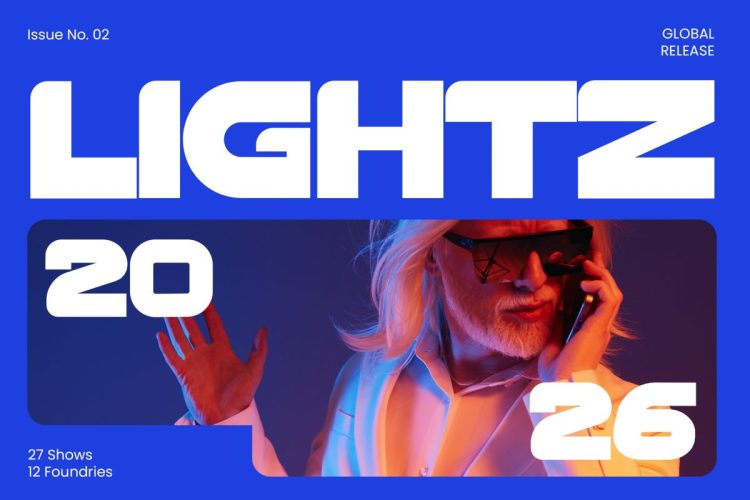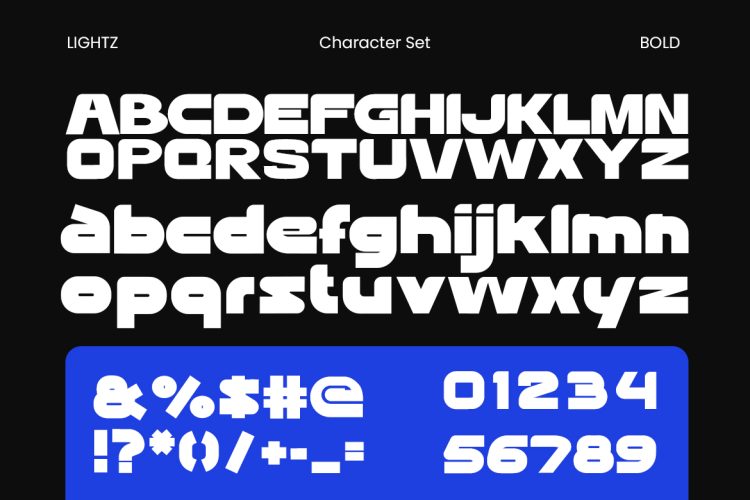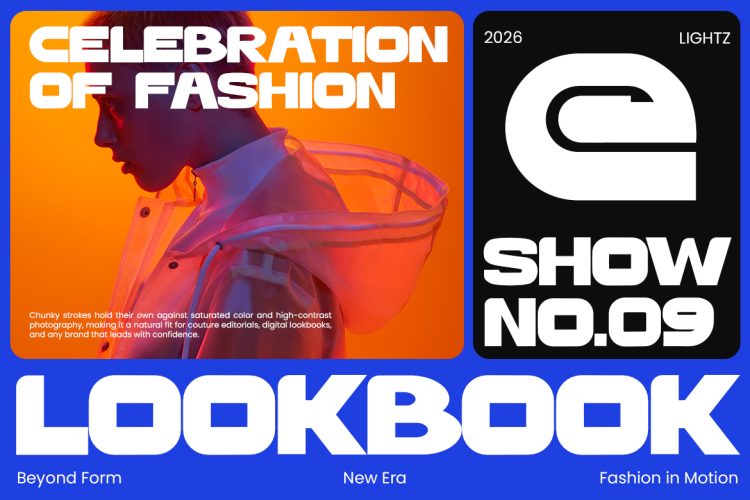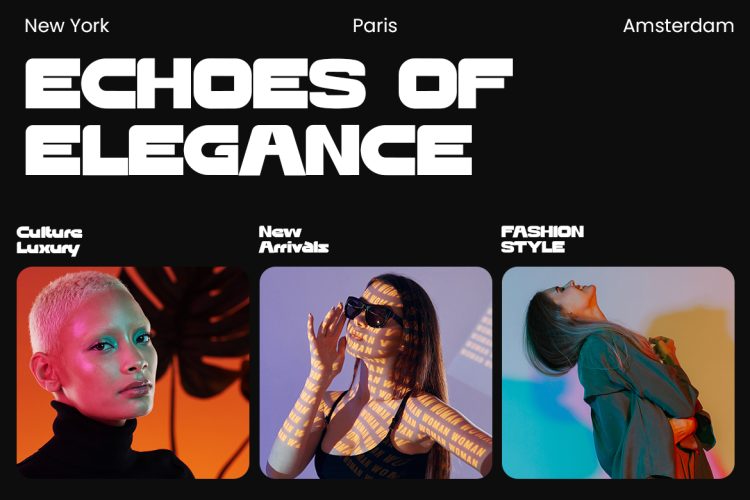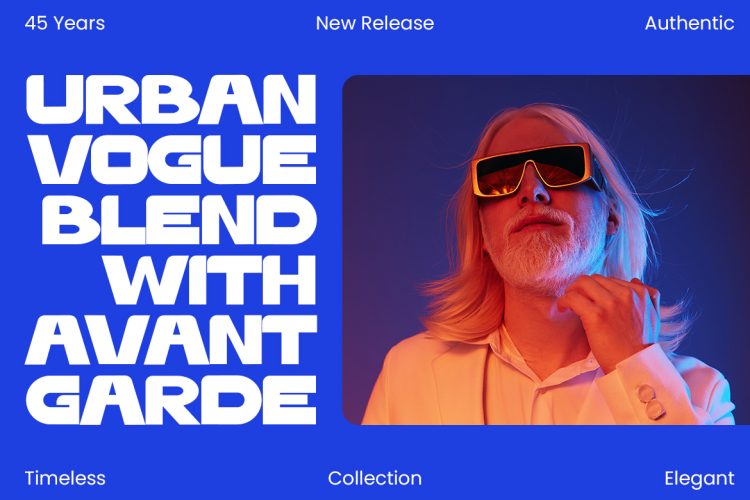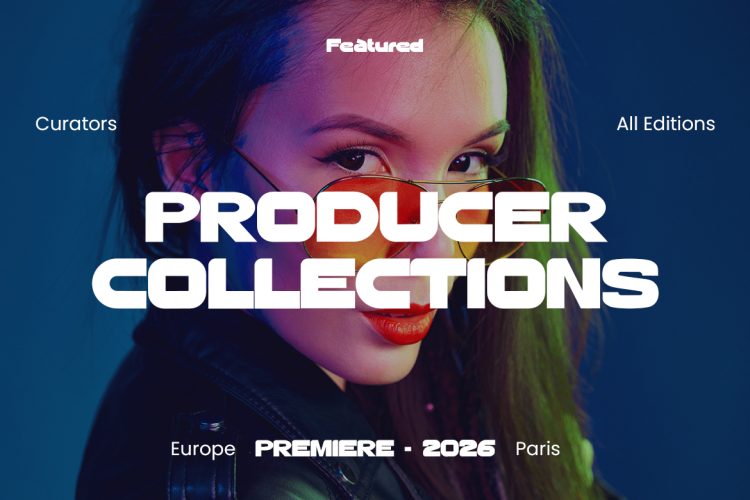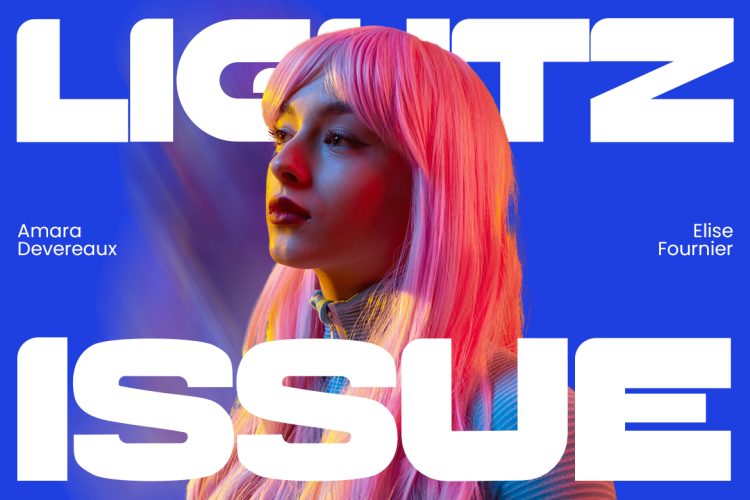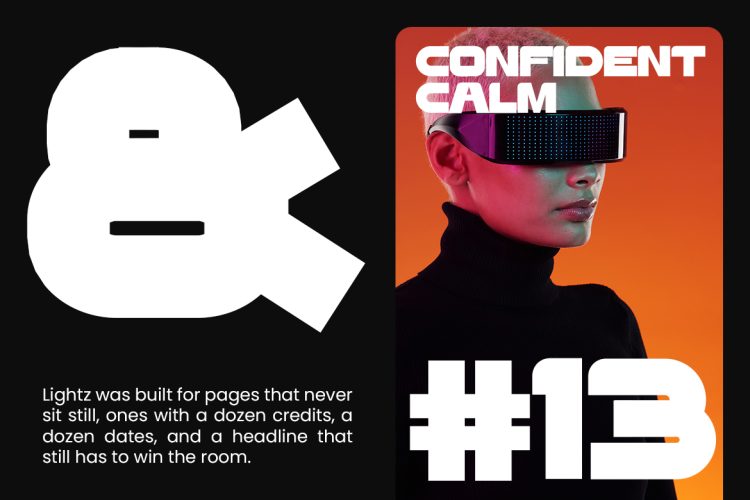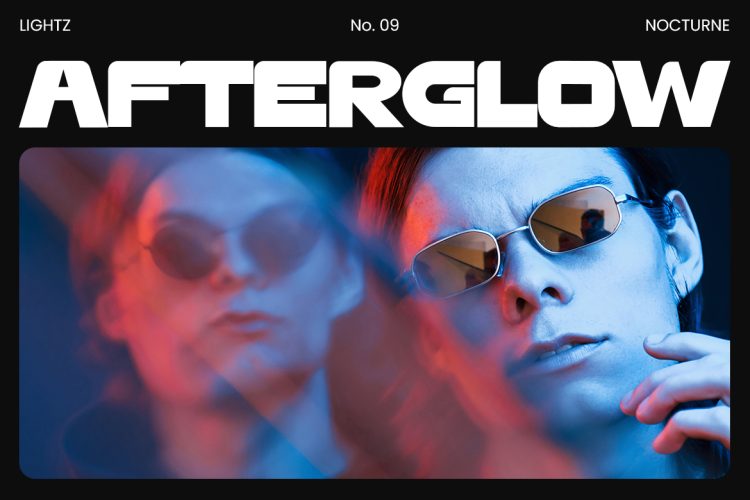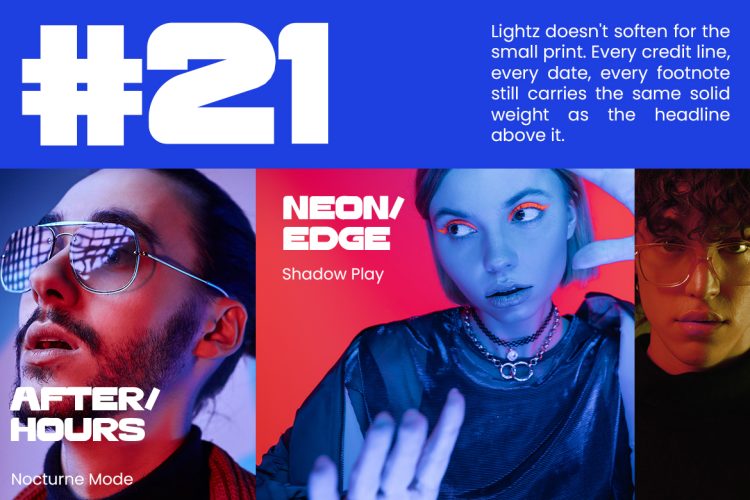
LIGHTZ โ Bold Futuristic Display Font
Instagram Font LIGHTZ brings a sharp futuristic attitude to modern visuals through chunky geometric forms, compact proportions, and a powerful display presence. Unlike ordinary bold fonts, LIGHTZ combines a clean structure with a tech-inspired personality, so every headline feels instantly stronger. Moreover, its wide visual impact makes short words stand out, while the solid letterforms remain clear across posters, screens, and social media graphics. At the same time, its contemporary character pairs naturally with photography, gradients, neon colors, and high-contrast layouts. As a result, LIGHTZ gives creative projects a confident voice with a fresh digital edge.
Built for Trendsetters & Visual Creators
Instagram Font LIGHTZ is made for designers, creative studios, fashion brands, music creators, digital artists, and content makers who want bold typography with attitude. Furthermore, it works beautifully for Instagram posts, fashion lookbooks, event posters, music artwork, magazine covers, campaign graphics, branding, thumbnails, product visuals, and digital advertising. In addition, its strong geometric shapes create instant visual hierarchy, while its futuristic character keeps compositions fresh and energetic. Meanwhile, the compact proportions help headlines stay powerful without overwhelming the overall layout. Therefore, LIGHTZ can turn simple words into memorable design statements.
Instagram Font LIGHTZ Perfect For
- Instagram & social media
- Fashion campaigns
- Music & event graphics
- Editorial designs
- Digital branding
- Posters & lookbooks
- Creative advertising
- Modern visual projects
Make Your Headlines Hit Harder
So, if your design needs bold energy with a futuristic twist, LIGHTZ is ready to step in. With its strong geometric structure, every headline gains a sharper visual presence. Additionally, its digital-inspired style works naturally with bold imagery, vivid gradients, neon effects, and high-contrast compositions. Because of this, LIGHTZ easily becomes the focal point of modern creative layouts. Likewise, it can add a confident visual rhythm to branding, campaigns, posters, and social content. Ultimately, LIGHTZ gives your typography a fresh digital attitude that feels bold, modern, and ready for the future.